Fancy Letter N Font
Every fancy font style rendered for just the letter N, so you can compare them side by side before picking one for an initial, a logo, or a single-character tag.
The Letter N in Every Style
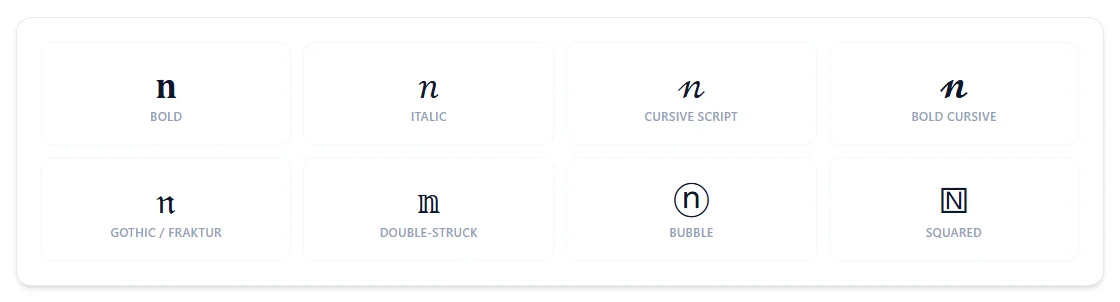
N's Double-Struck form (ℕ) isn't a decorative invention — it's the standard math symbol for the set of natural numbers, and N is also one of the letters that looks identical when flipped upside down.
Why does double-struck N look like a math symbol?
Because it is one — ℕ is the standard notation for the natural numbers, and Unicode's double-struck N reuses that exact character.
Does N look the same upside down?
Yes — N is symmetrical enough that rotating it 180 degrees produces the same shape.